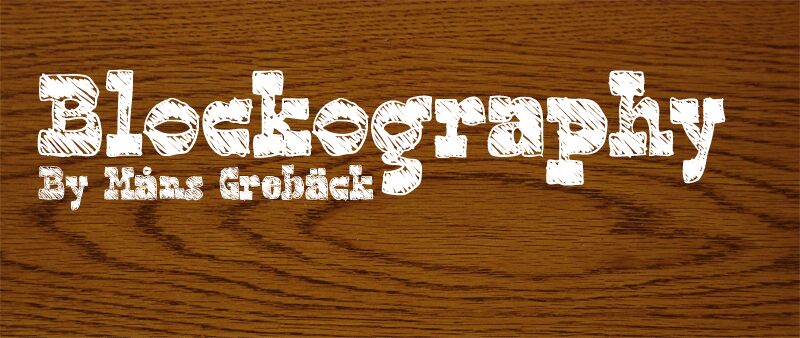
Blockography by Måns Grebäck is a free eroded Western display font with broad, blocky slab serifs, uneven contours, and dense hand-scratched shading inside the letters. Its rough inked texture recalls a hastily carved old frontier sign.
Western-themed bars and barbecue brands could use it across logos, menus, and packaging, drawing on its rowdy, hand-rendered edge. It also suits concert posters and game graphics built around saloons, outlaws, or comic frontier action. For rustic branding, the hatched interiors make a product name resemble an old signboard rather than ordinary printed type.